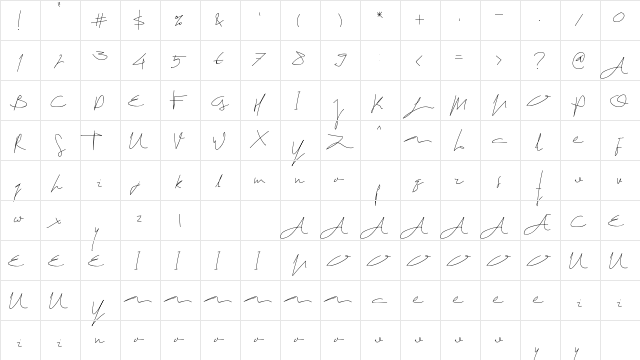
Etas Maya Regular
Design Context for Etas Maya Typeface
Etas Maya is a composed and adaptable typeface that performs quietly and consistently across a wide range of design contexts.